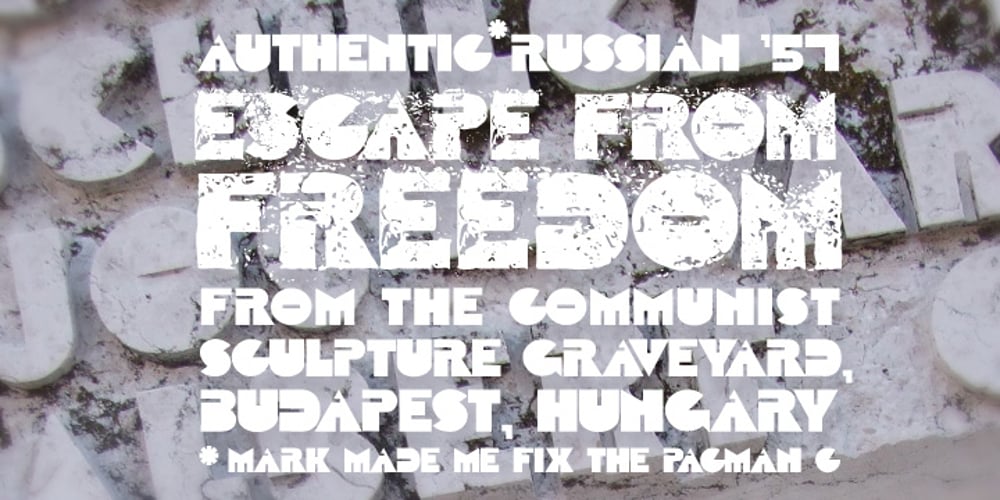
Escape From Budapest
Escape From Budapest font
Escape From Budapest Font Family was designed by Matt Frost and published by Matt Frost. Escape From Budapest contains 2 styles and family package options. I found this type specimen in the Communist Sculpture graveyard outside of Budapest. Though there isn’t much information — this statue has been left to rot — I have been told that it carries the names of fallen Russian soldiers after they brutally squashed the Hungarian uprising of 1956. The statue was erected in Budapest in 1957 as a reminder not to revolt again. That didn’t last long. This is a small cap font. Go to http://facebook.com/frostfoundry to share this and see more!